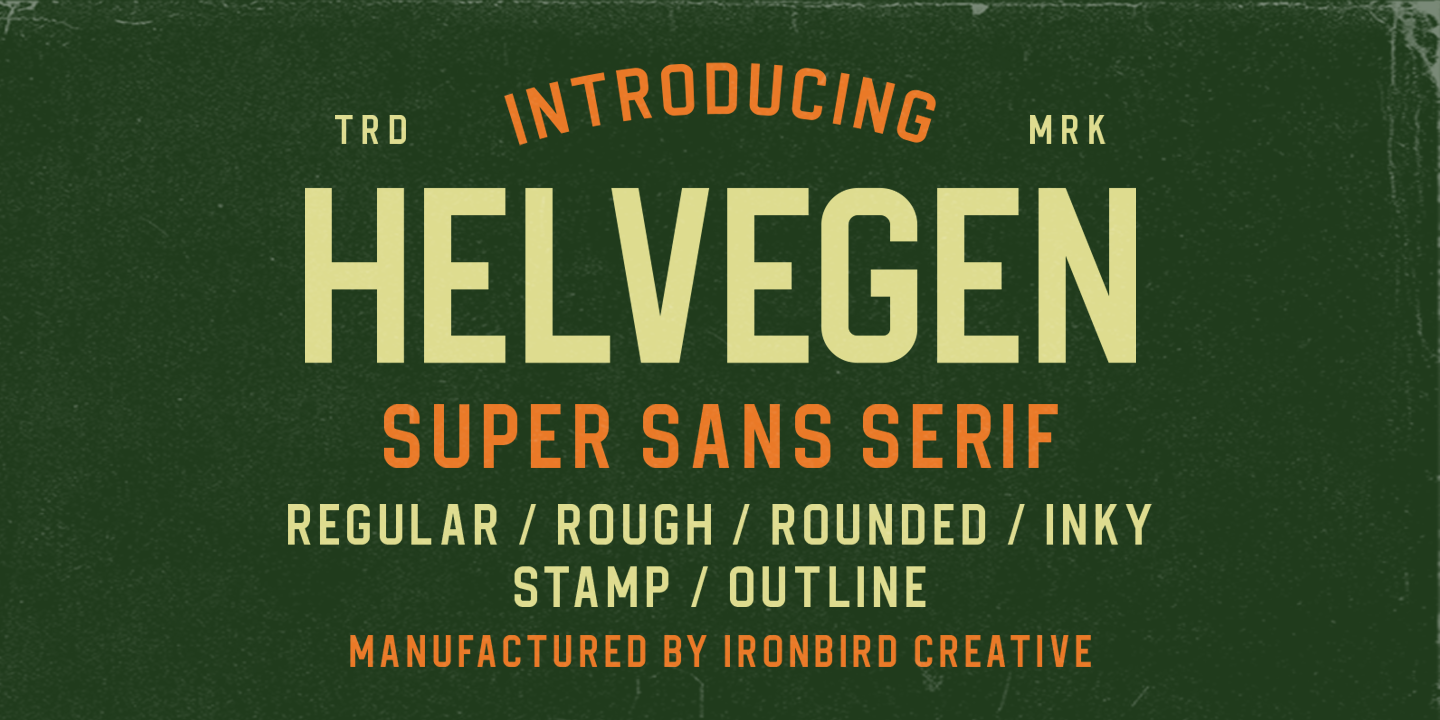
Helvegen Font is perfect for Nordic heritage branding, Scandinavian cultural projects, Viking-themed entertainment, ancient mythology publications, folk music album covers, historical documentary titles, runic tattoo studio signage, and mystical storytelling designs. This powerful typeface excels in heritage applications, mythological design projects, and any creative work requiring ancient wisdom that captures the essence of Nordic traditions and Viking strength through commanding visual storytelling.
What makes Helvegen Font exciting is its remarkable ability to embody ancient Nordic power and mythological depth through ruggedly crafted letterforms that echo the strength of Viking warriors and the wisdom of ancient sagas. The font features boldly designed characters with Nordic influences and mythological proportions that evoke feelings of ancestral strength and cultural heritage, making it ideal for brands seeking to establish connections with Nordic traditions and communicate through powerful historical visual language. Its ancient presence ensures immediate recognition of heritage authenticity and mythological depth.
Helvegen Font family includes multiple weights and styles: Regular, Bold, Light, Medium, Italic variations, and runic alternates with Nordic embellishments and mythological decorative elements. Each family member maintains the distinctive heritage character while offering comprehensive design options for powerful cultural campaigns, from ancestral storytelling text to commanding saga headlines that establish Nordic authority and mythological credibility through ancient typographic strength.
Whether you're designing Nordic heritage brands or creating mythological storytelling campaigns, Helvegen Font Free Download provides the perfect typography solution for ancient branding needs. This font transforms ordinary text into powerful ancestral statements that communicate Nordic strength and mythological wisdom. Heritage brands and cultural storytellers choose this typeface for its ability to convey ancient power through ruggedly crafted letterforms that carry the strength of Viking legends and the eternal wisdom of Nordic mythology.